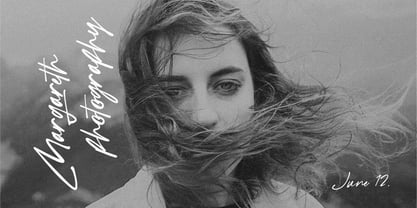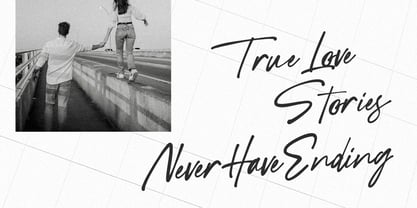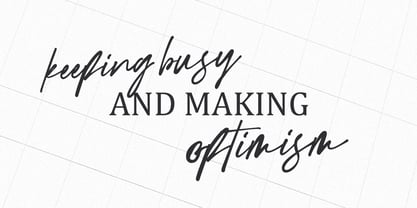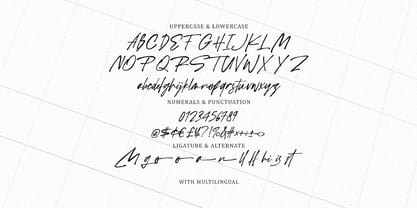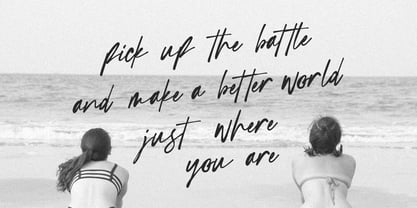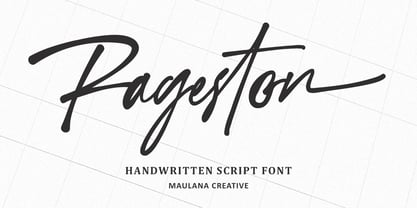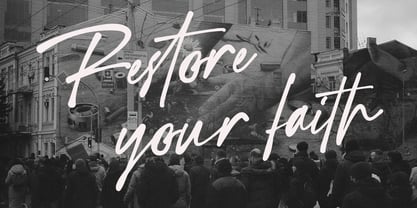
MC Rageston
by Maulana Creative
The MC Rageston Font Family was designed by Gilang Maulana and published by Maulana Creative. MC Rageston contains 1 styles. More about this family
Introducing Rageston, a bold and expressive handwritten script font that captures the spontaneous beauty of a genuine signature. Crafted with a dynamic flow and a slightly rough edge, Rageston brings an unparalleled level of authenticity and an impressive touch to your design projects. This font is perfect for creators seeking to evoke a sense of individuality, elegance, and raw artistry. The thick, confident strokes and natural connections make it an excellent choice for various applications, including logos, branding, digital products, social media graphics, quote overlays on photographs, wedding invitations, and watermarks. Enhance your designs with Rageston's unique character and stylish flair, making it a standout choice for any creative endeavor.
Designers: Gilang Maulana
Foundry: Maulana Creative